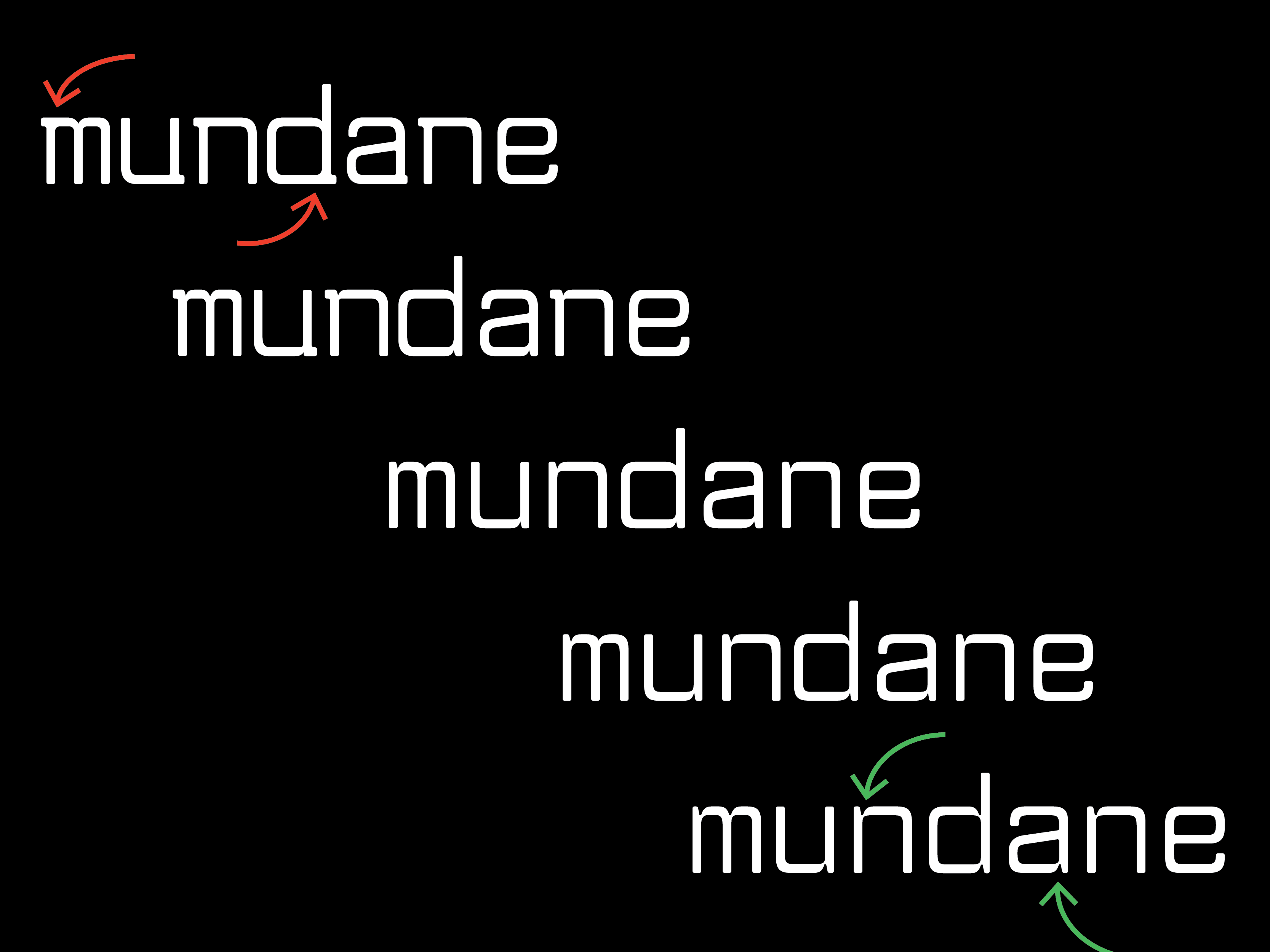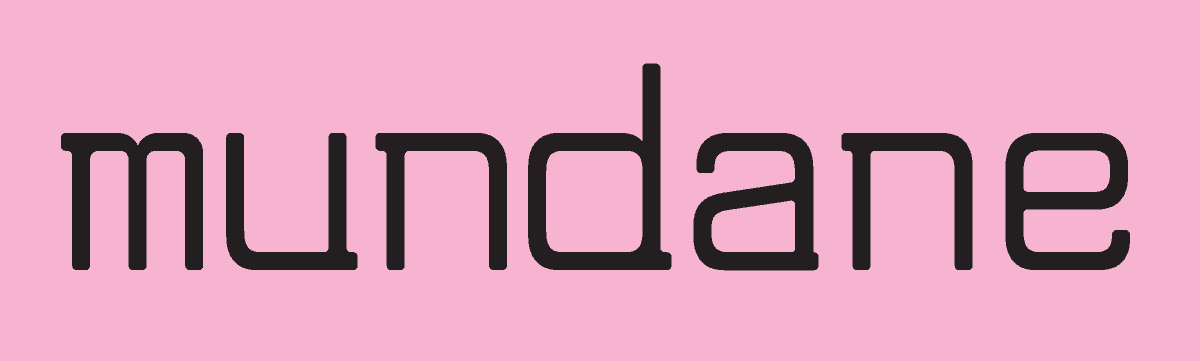
Alrighty! You are all going to roll your eyes at me for this one, but I am still working on Weightless!! It’s been going well but I am stuck on one particular thing. Brace yourself for this technical term, I am stuck on the triangles in the lowercase between the stems and the parts branching from them (like in n). See the example below. The original version I made didn’t have these triangles and also had little nubbins that were from the original source. However, I have decided to get rid of said nubbins in favor of a more text-friendly option, which is triangles!
Whenever I design these triangles in a text typeface, I always start too timidly. It’s taken me about 4 versions to get it into a good spot. Up close, the latest version feels a little dramatic but when you look at it in text it feels normal. I am at the point where I feel like I have been looking at this for far too long and part of me worries that I’ve taken it too far! I’ll probably let this simmer for a few days and come back to it with fresh eyes.
Last thing about Weightless — because I changed so much of the regular style, I deleted my light and bold and will have to restart those! It’s easier in a typeface like this to start from scratch than try and remember all the changes I made. It’s also important to note that I am a perfectionist and don’t plan on stopping until I’m 6ft under!!
I liked the show Silo so much that I’m reading the books now. I am about halfway through Wool by Hugh Howey. It’s the first book and so far I’m loving it!
A couple weeks back, I did a media + entertainment free week and it honestly changed my whole perspective on my relationship to my phone and distractions! I think I have recommended this app before but I’ve been using Opal to block any social media or games on my phone from 7am-5pm and then again from 9pm-12am. It’s been a game changer to only have a short window where I have unlimited access to my phone. Most days, I only scroll for about 30 min and it’s honestly enough! I am still in the loop without harming my mental health. And I am the most productive I have ever been!